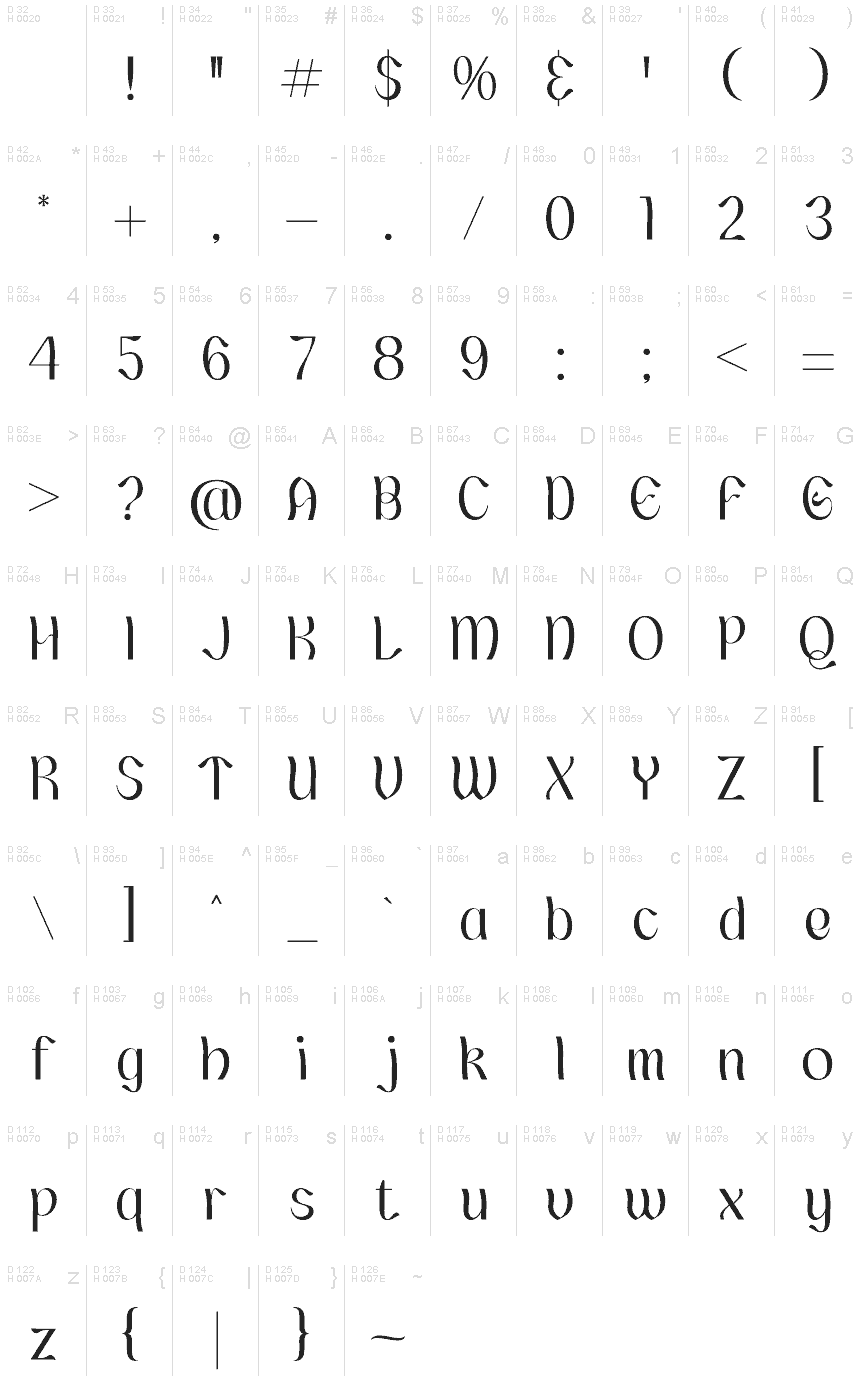
Gaslrile
Gaslrile font is a luxurious modern display typeface from Storytype Studio with elegant, whimsical, and ornamental features. Its vintage-inspired artistic touch makes it uniquely stand out when paired with common sans and other serif fonts in headlines and logotypes. Gaslrile balances decorative flair with an easy readability thanks to its tall uppercase range.